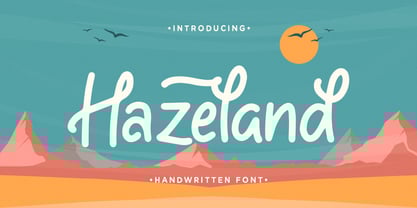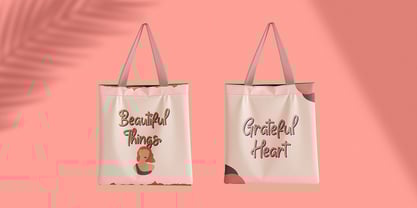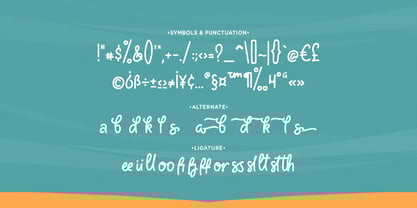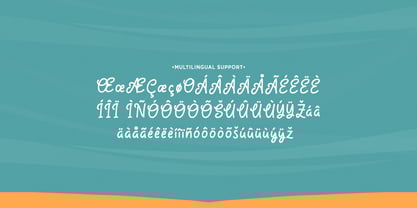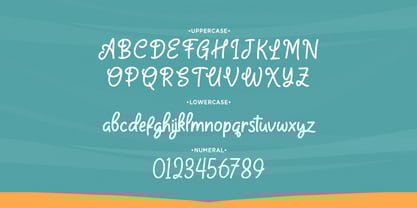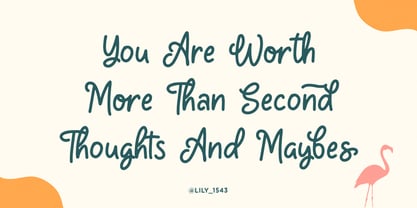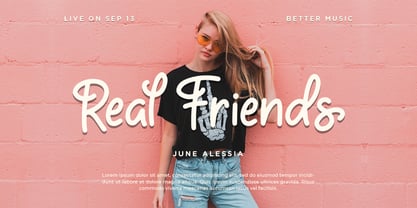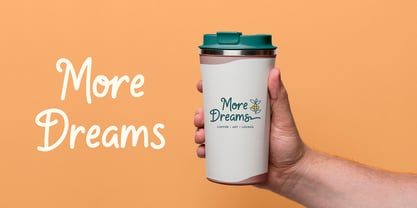
Hazeland
by Typefactory
The Hazeland Font Family was designed by Hilmius Akbar and published by Typefactory. Hazeland contains 1 styles.
Hazeland is a fancy handwritten font, carefully handcrafted to become a true favorite.
This font will look outstanding in any context, whether it’s being used on busy backgrounds or as a standalone headline!
Features:
- Uppercase
- Lowercase
- Symbols & Punctuation
- Numeral
- Ligature
- Alternate
- Multilingual Support